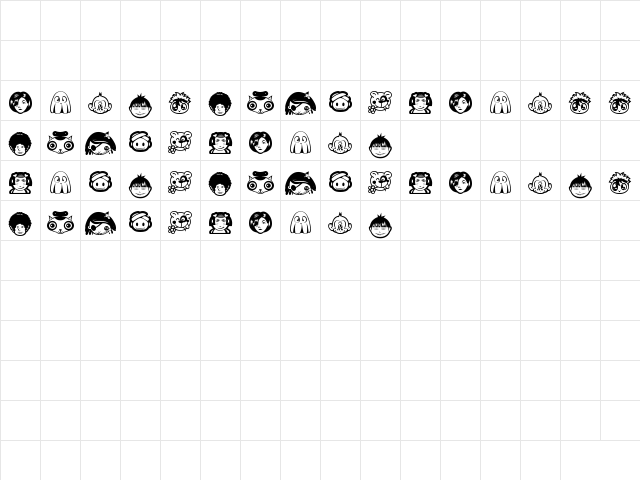
RANDOM Face 1 Regular
Design Context for RANDOM Face 1 Typeface
RANDOM Face 1 is a composed and adaptable typeface that performs quietly and consistently across a wide range of design contexts.